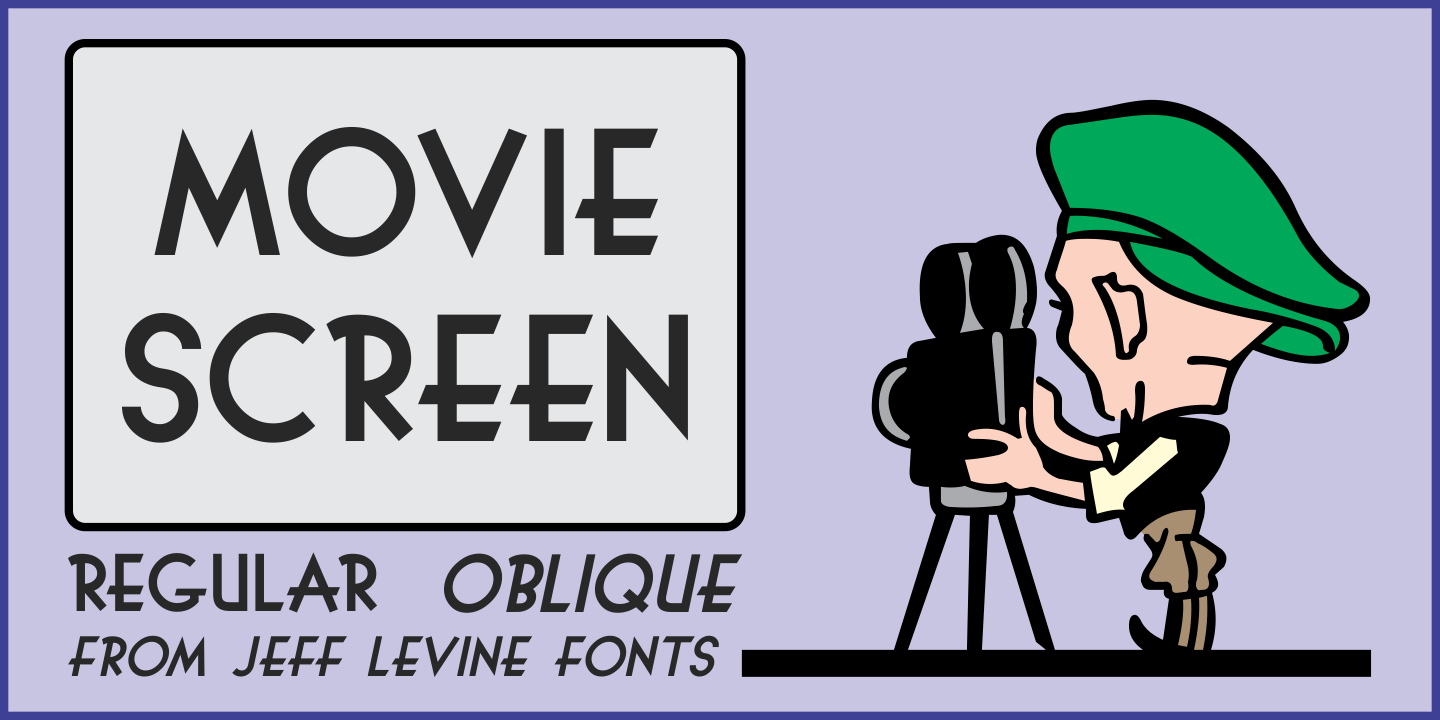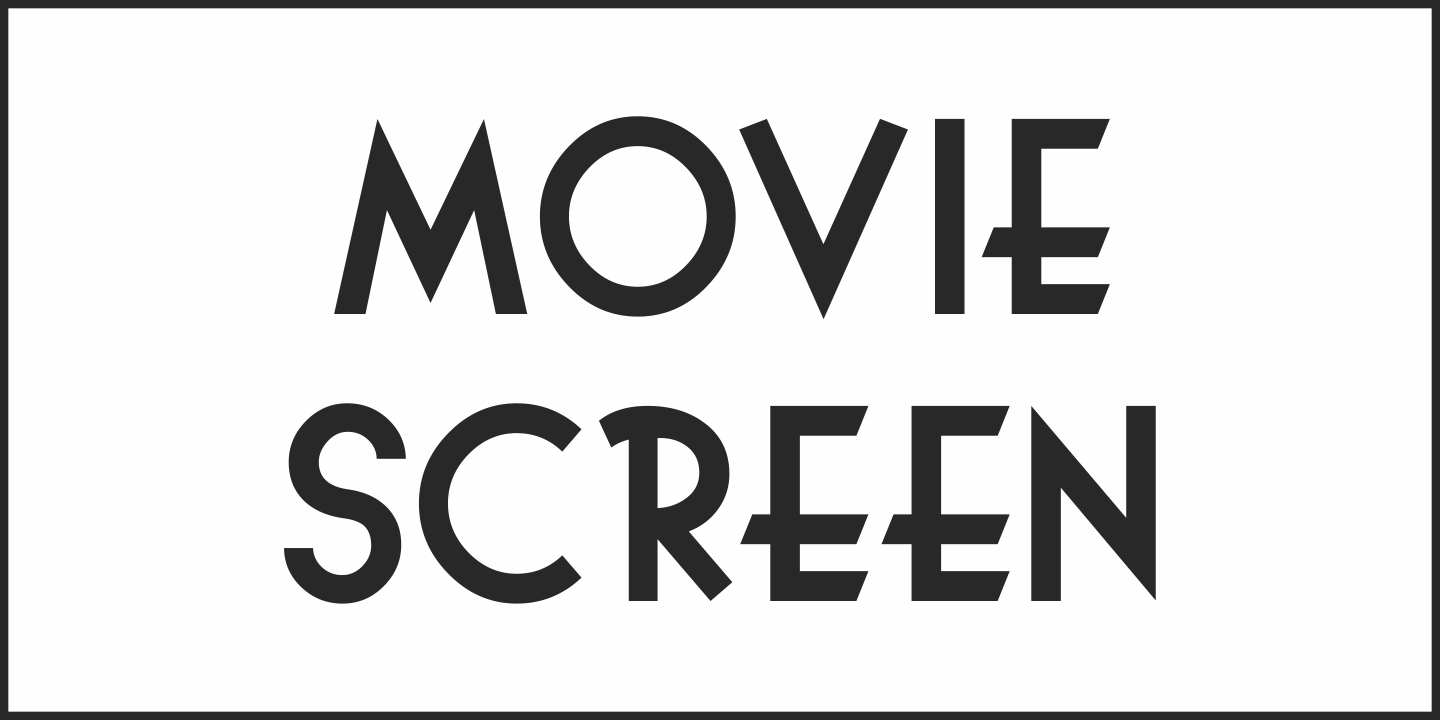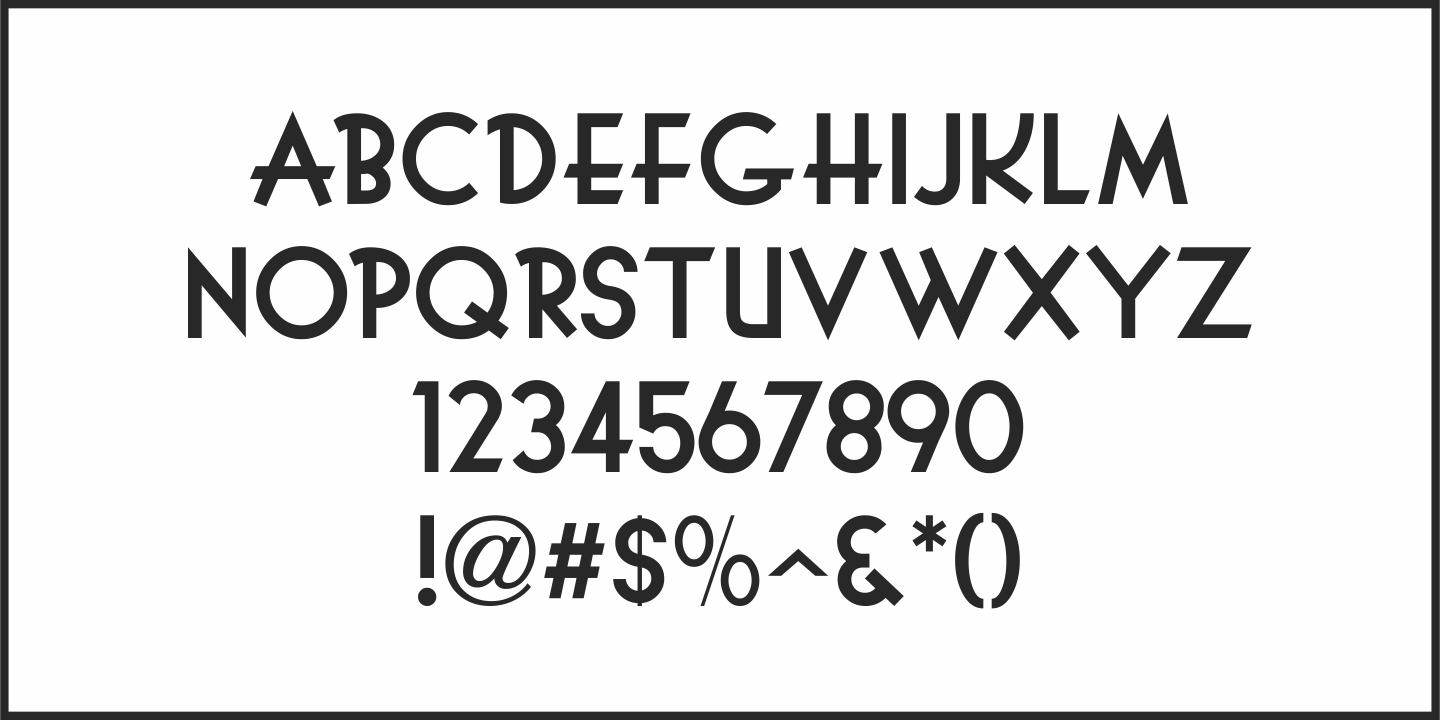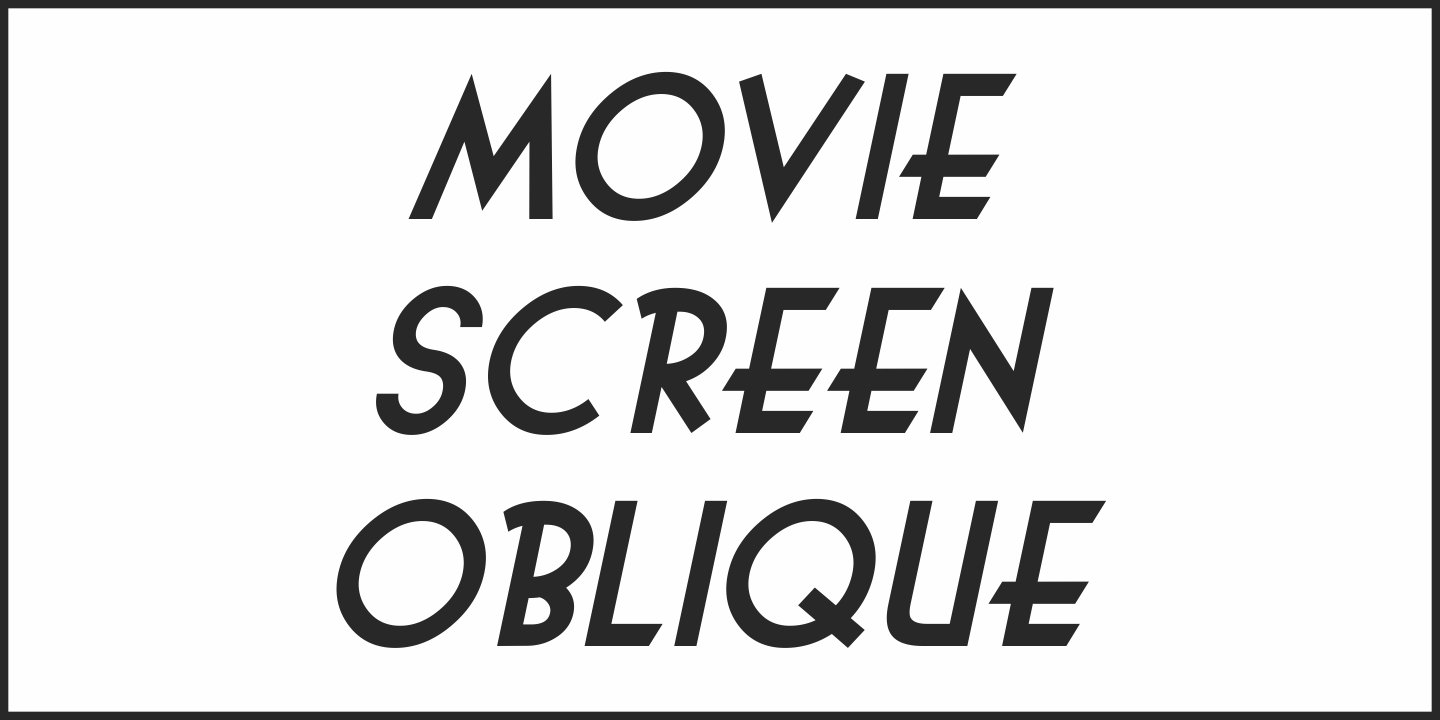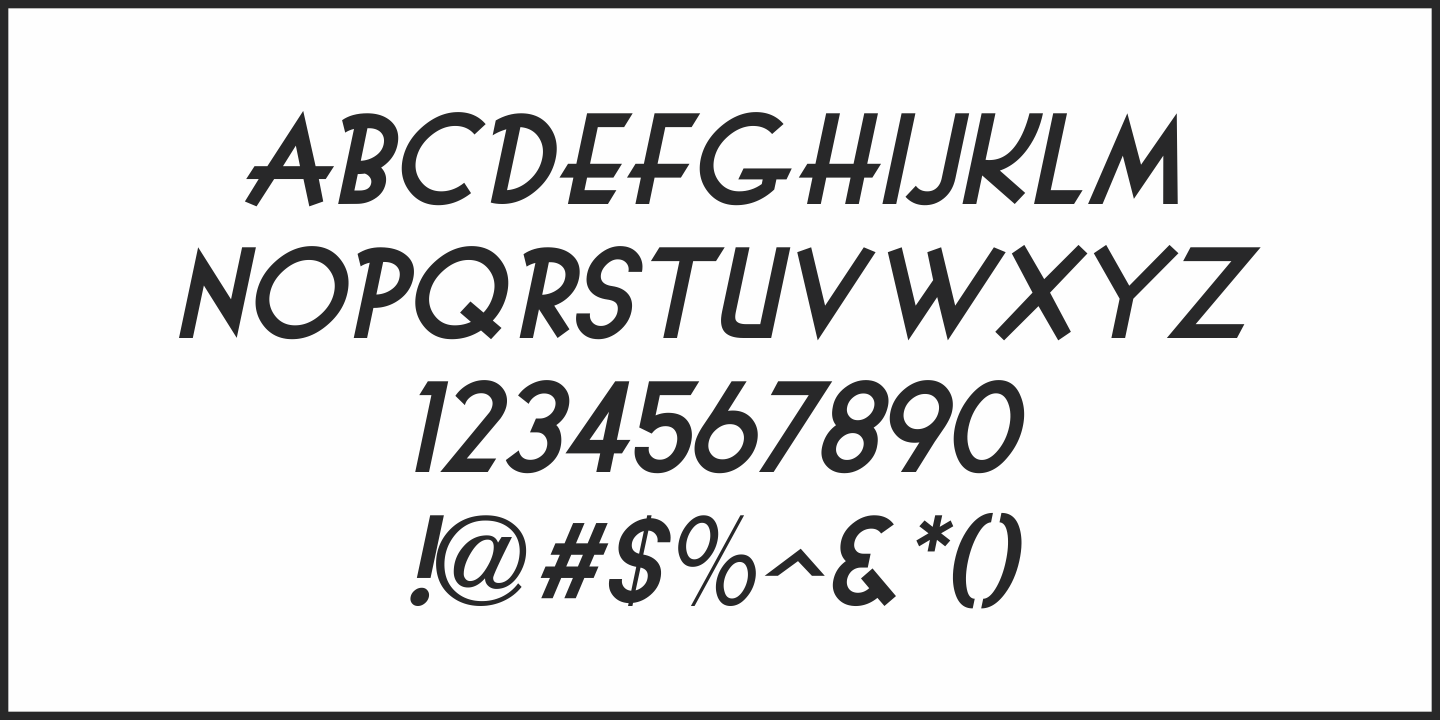
Movie Screen
The hand lettered opening titles from the 1944 Laurel and Hardy comedy 'The Big Noise” served as the inspiration for Movie Screen JNL, which is available in both regular and oblique versions.